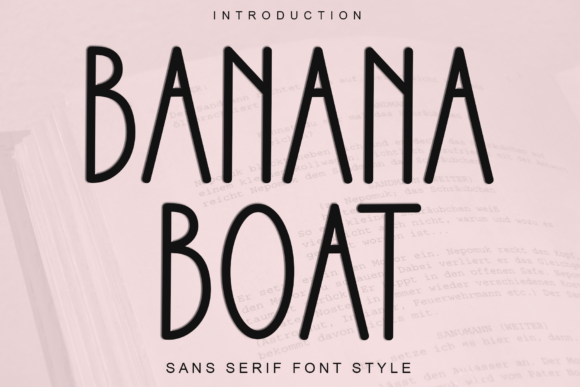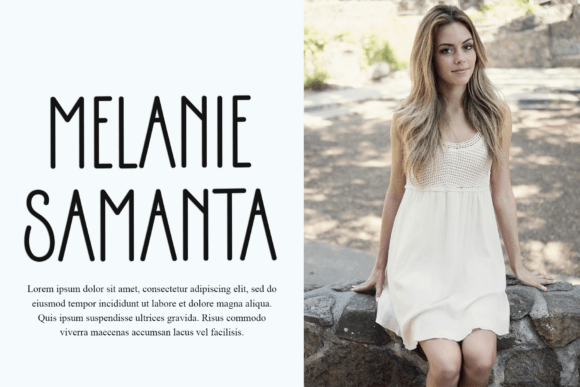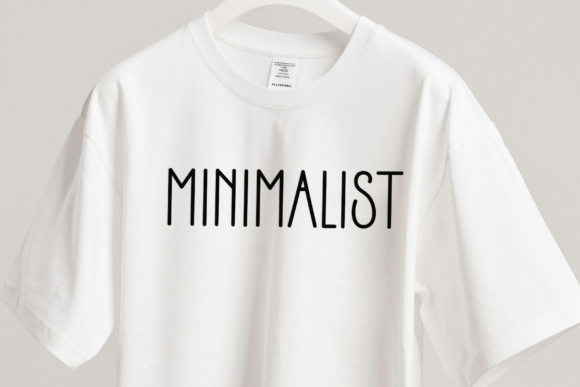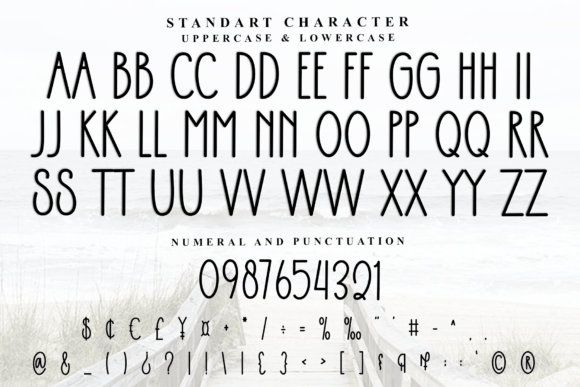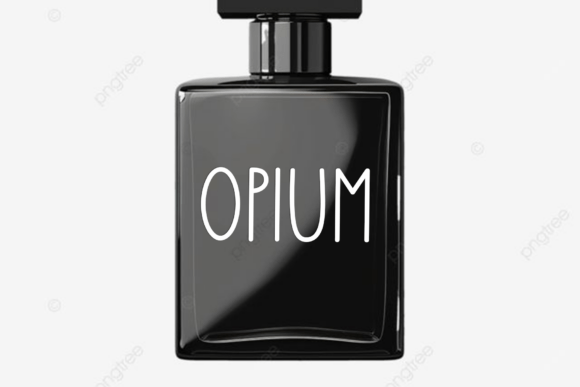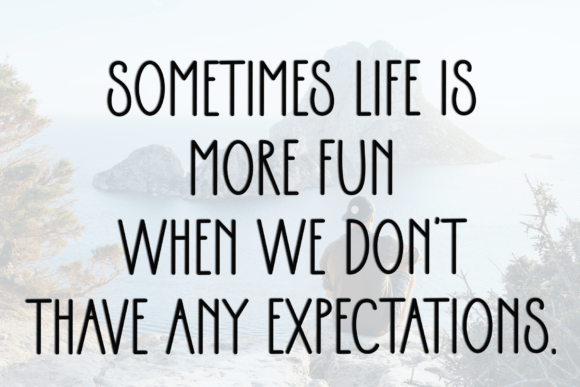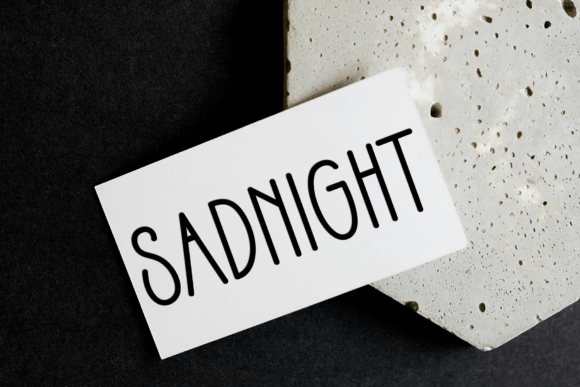
Deck the Halls with the Perfect Holiday Font
It’s that time of the year when creativity knows no bounds, and the festive spirit takes over our design work. You’re browsing through your font collection, searching for the perfect match to capture the essence of the holiday season. And then, you stumble upon it – a font that’s as merry as a Christmas carol, as whimsical as a snowflake, and as enchanting as a winter wonderland. That font is the Banana Boat Font, and it’s about to become your new best friend.
With its decorative elements and playful flair, the Banana Boat Font adds a touch of magic to your designs. Whether you’re crafting greeting cards, gift tags, or holiday-themed projects, this font is the perfect companion to bring a cheerful and nostalgic ambiance to your words. And the best part? It’s PUA encoded, making it easy to access all the amazing glyphs and ligatures.
Banana Boat Font Key Features
- Font Family: Banana Boat is a sans-serif font family designed for use in digital media.
- Unique Characteristics: Banana Boat features a unique blend of modern and playful design elements, including rounded edges and a friendly, approachable feel.
Designer Review: Banana Boat Font
Overall, I was excited to dive into the Banana Boat Font, but my experience was a mixed bag. Here are my thoughts.
- The Banana Boat Font has a unique and quirky feel that’s perfect for adding some personality to your design projects.
- The font’s curves and rounded edges give it a friendly, approachable vibe that’s great for branding and marketing materials.
- The font is highly legible, even at smaller sizes, making it a good choice for body text and captions.
- The font’s quirkiness can also be a bit much at times, making it difficult to read in certain contexts.
- The font lacks a bold weight, which can make it difficult to use in situations where you need to add emphasis.
- The font’s rounded edges can also make it look a bit childish or immature in some designs.
Overall, the Banana Boat Font is a fun and playful addition to any design project, but it’s not without its limitations. With a bit of careful consideration and planning, it can be a great choice for the right project.
The Banana Boat font is ideal for creating playful and casual designs. Some common use cases include:
- Summer-themed designs
- Children’s products and packaging
Alternatives to Banana Boat Font
Great Vibes is a popular script font that can be used for titles, headings, and short paragraphs. It has a similar relaxed, casual feel to Banana Boat Font, but with a more elegant and refined touch. Great Vibes is ideal for designing beach-themed materials, travel brochures, and summer-themed advertisements.
Comparison: Great Vibes has a more polished and sophisticated look compared to Banana Boat Font, making it suitable for more upscale designs.
Carolyna Pro is a modern script font with a playful, handwritten feel. It’s perfect for creating eye-catching headings and titles that evoke a sense of fun and creativity. Carolyna Pro is great for designing event invitations, social media graphics, and promotional materials for young audiences.
Comparison: Carolyna Pro has a more dynamic and energetic feel compared to Banana Boat Font, making it ideal for designs that require a bolder statement.
Alex Brush is a elegant script font with a sophisticated, high-end feel. It’s perfect for creating luxurious and refined designs that require a touch of elegance. Alex Brush is ideal for designing high-end fashion materials, luxury brands, and upscale event invitations.
Comparison: Alex Brush has a more refined and polished look compared to Banana Boat Font, making it suitable for more formal and sophisticated designs.